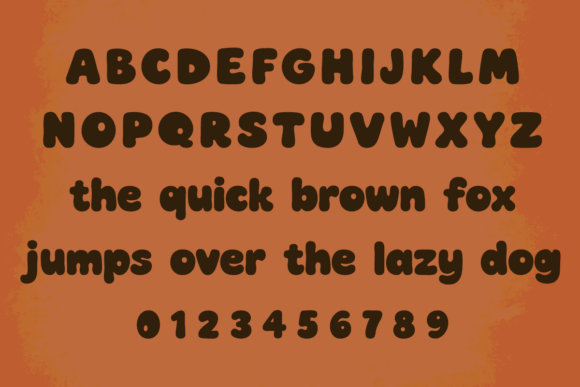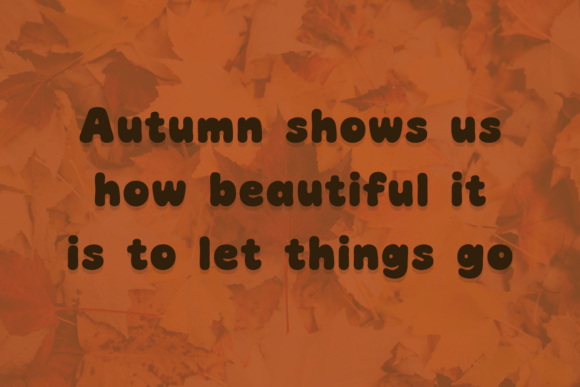
Introduction to Fun Letters Font
Have you ever stumbled upon the perfect font while browsing through design resources, and suddenly, your creative project transforms from bland to grand? That’s exactly what happens when you discover the Fun Letters Font. This playful decorative display font is bursting with color and personality, making it an instant favorite among designers.
What sets Fun Letters Font apart is its unique blend of rounded, bubbly letterforms and smooth curves that create a cheerful and approachable vibe. Whether you’re designing children’s books, party invitations, or educational materials, this font shines with its bold yet friendly strokes and excellent readability. Its soft, colorful style brings a whimsical charm to any creative project, making it an invaluable design resource for those seeking a high-quality, free download with a transparent background.
Key Features of Fun Letters Font
- High-quality design resource with a unique and playful style, perfect for creative projects and personal use.
- Fun Letters Font is a versatile design resource that can be used for a variety of creative projects, from graphic design and digital art to print materials and branding.
- Fun Letters Font is a high-quality design resource that is perfect for designers and artists looking for a unique and creative way to add visual interest to their work.
Honest Review: Fun Letters Font
I recently stumbled upon the Fun Letters Font and was excited to dive in and see what it had to offer. As a designer, I’m always on the lookout for high-quality design resources that can elevate my creative projects.
- High-quality design with unique lettering styles
- Perfect for creating eye-catching headings and titles
- Limited character set, which may not be suitable for longer texts
- No bold or italic font variations, which can be a bit restrictive
- May not be suitable for print designs due to its digital origin
Overall, I think the Fun Letters Font is a solid addition to any designer’s toolkit. While it may have some limitations, its unique design and high-quality feel make it a great resource for digital projects.
Tips for Getting the Most Out of Fun Letters Font
Use Fun Letters Font to add a creative touch to your designs, such as in headings, titles, or quotes. Experiment with different font sizes and colors to create a visually appealing effect. You can also use the font in combination with other design resources, such as images or illustrations, to create a unique and eye-catching design.
Fun Letters Font is a versatile design resource that can be used in a variety of creative projects, such as: social media graphics, blog posts, presentations, posters, and more. It’s perfect for designers, artists, and marketers who want to add a fun and playful touch to their designs.